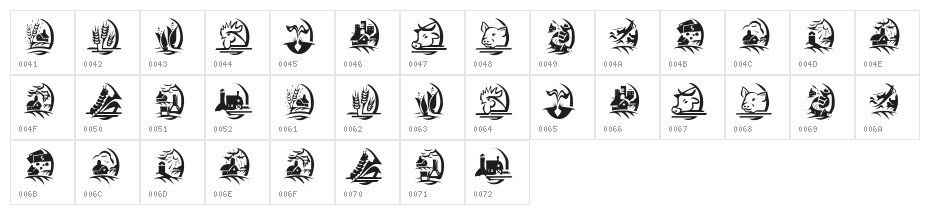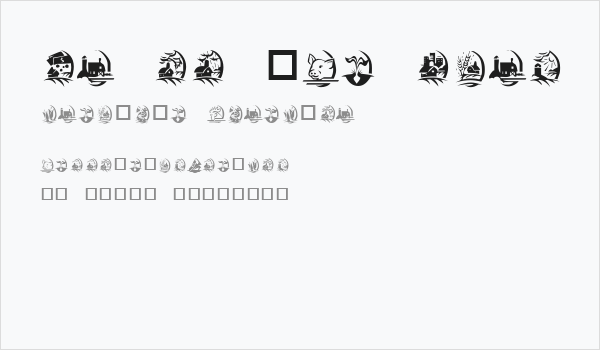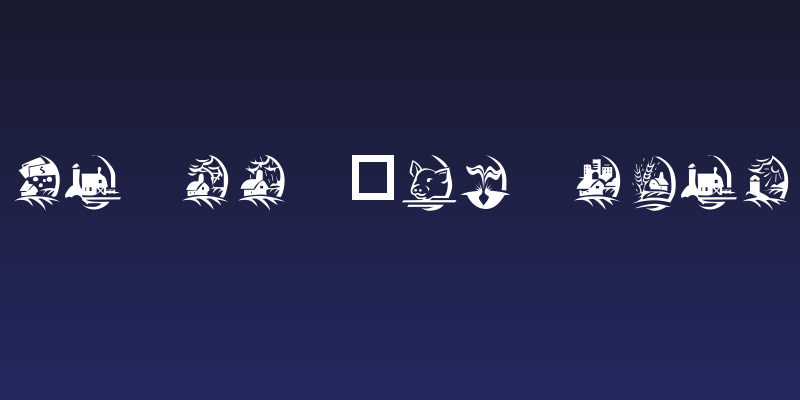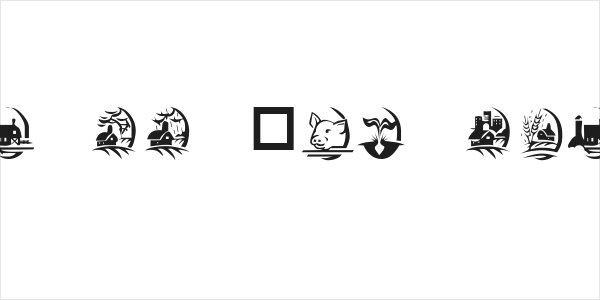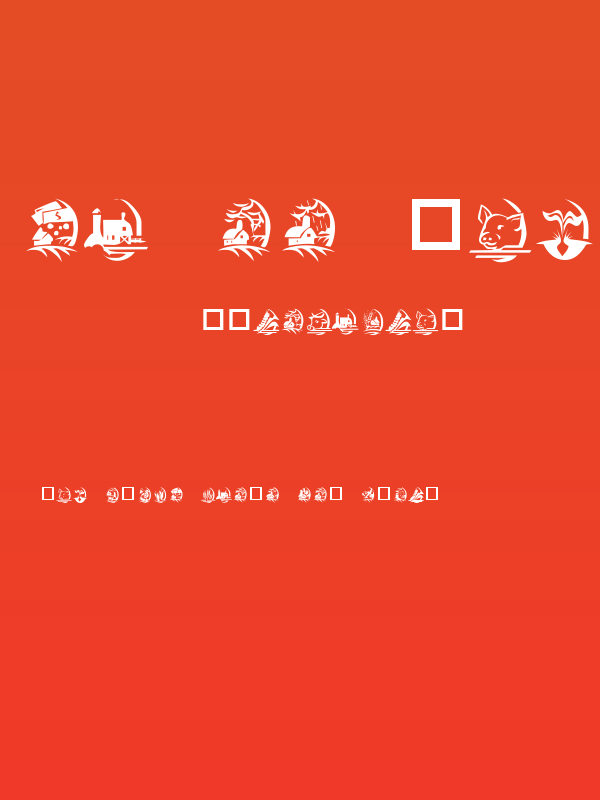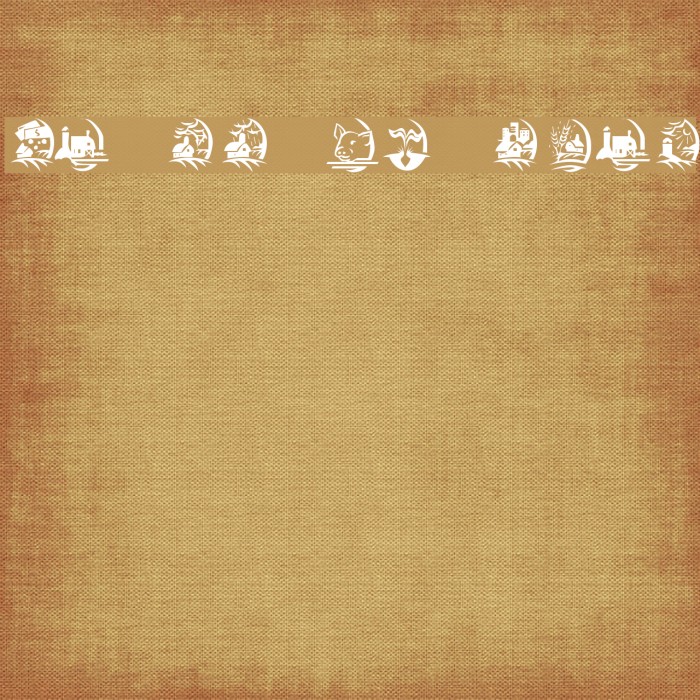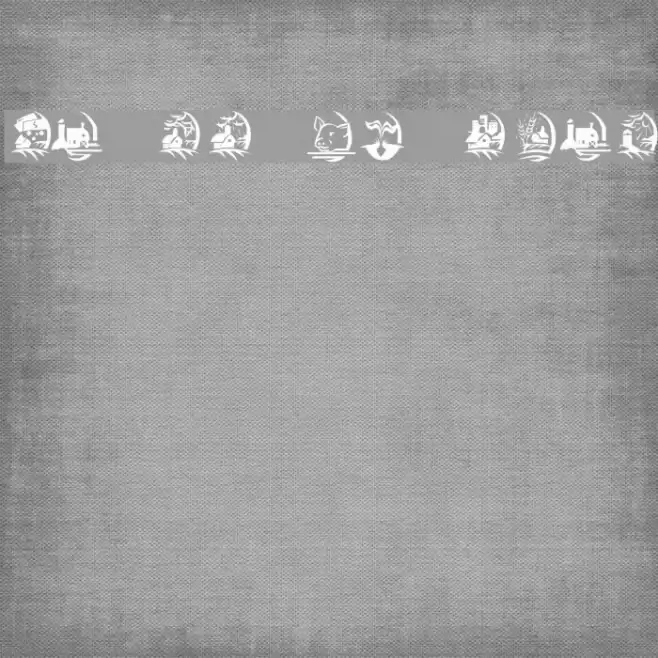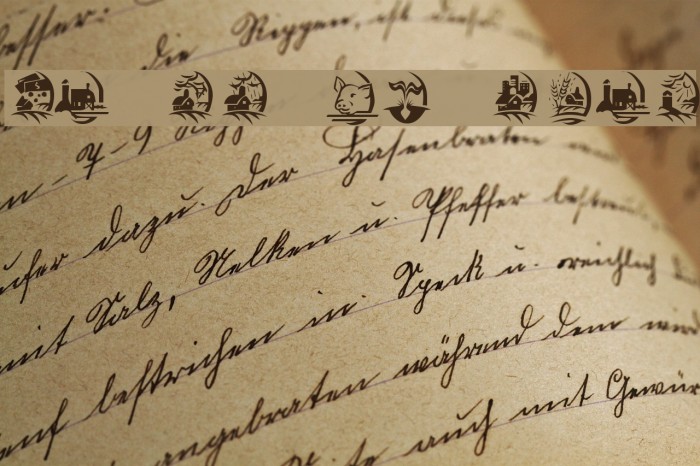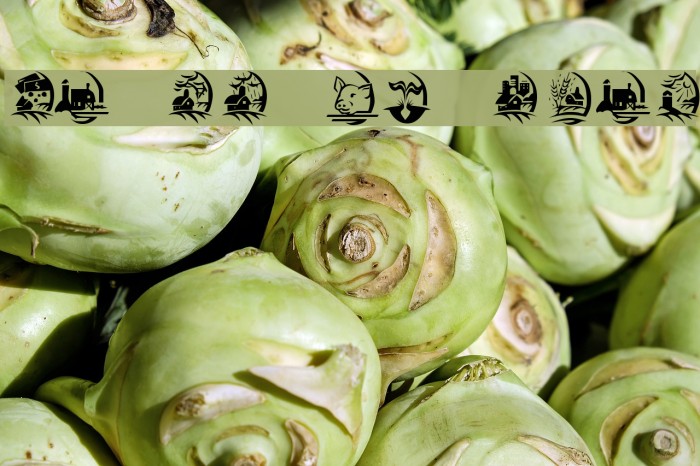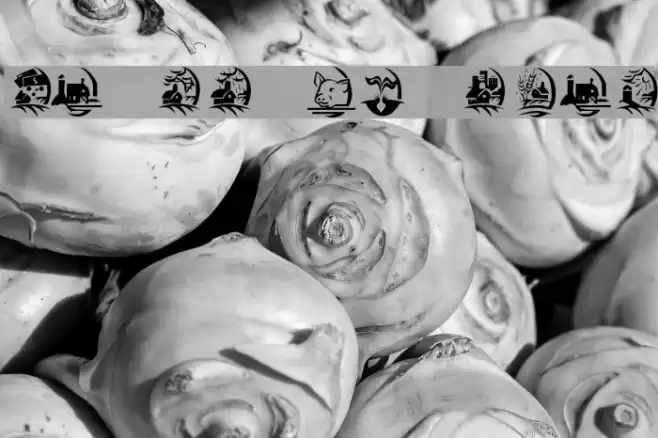
KR On The Farm Font
This decorative font features a series of farm-themed illustrations within circular frames, each representing different elements of rural life. The designs include images of crops, farm animals, and agricultural tools, all stylized with bold lines and intricate details. The characters are not traditional alphanumeric symbols but rather unique graphic representations, making this font ideal for thematic projects. The overall style is playful and illustrative, capturing the essence of farm life in a whimsical manner. The font is not suitable for standard text but serves as a creative element for design projects.
| Use Case | Logos, Decorative elements |
| Proposed Projects | Ideal for children's books, farm-themed event invitations, educational materials about agriculture, and decorative posters. |